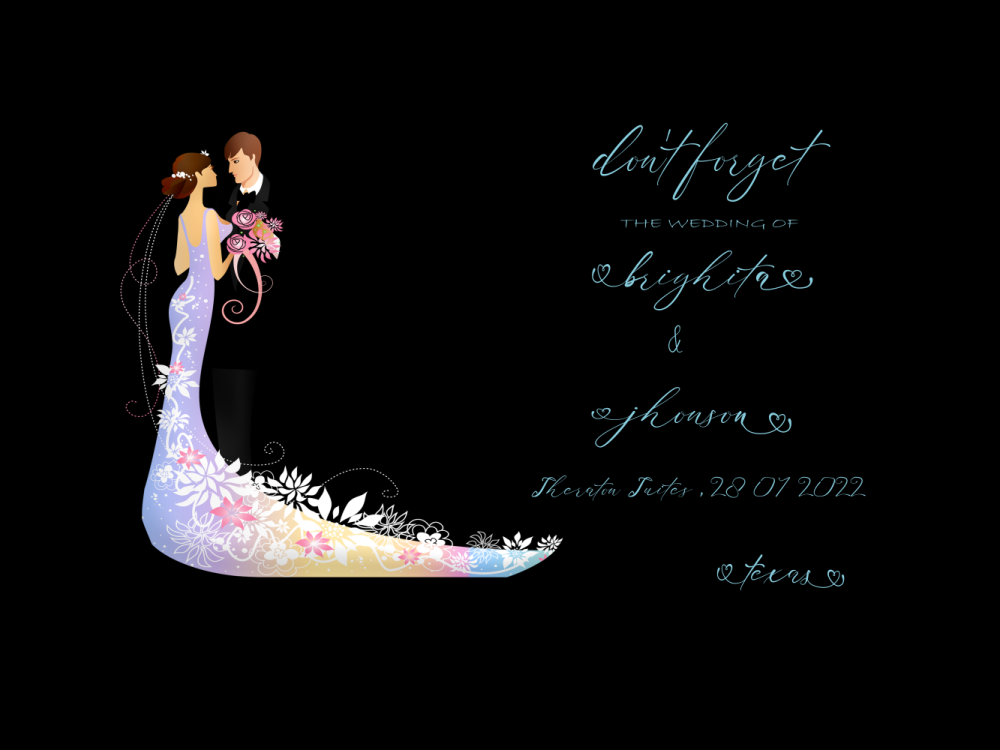
Almaira Free Font
Discover Almaira Free Font, a calligraphy typeface radiating romance and sweetness, as its characters gracefully sway along the baseline. Infuse a touch of opulence into your design projects by incorporating this font, and witness how it transforms your creative endeavors with a luxurious allure. If you like it don’t forget to check out the full version.